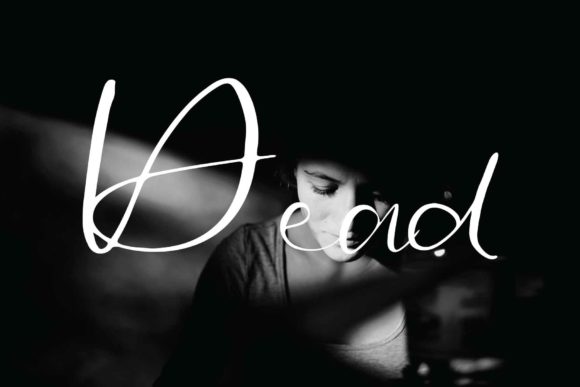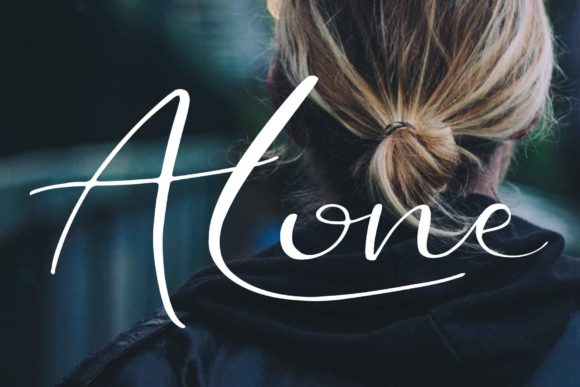
Introduction to Jonesly Font
Jonesly is a unique handwritten font, perfectly made for a big variety of font occasions.
Jonesly is a unique handwritten font, perfectly made for a big variety of font occasions!
Why Choose Jonesly Font?
Jonesly Font offers exceptional quality and versatility, making it a valuable addition to your design toolkit. Whether you’re creating for personal projects or commercial use, Jonesly Font delivers professional results.